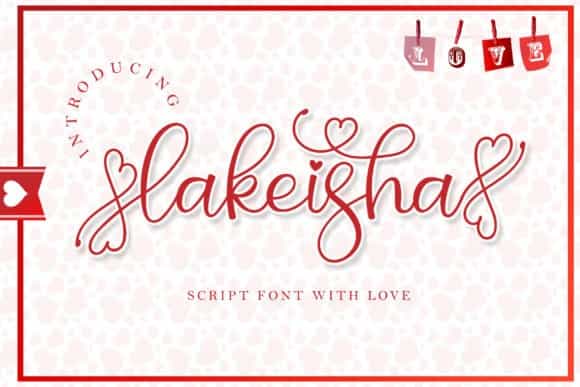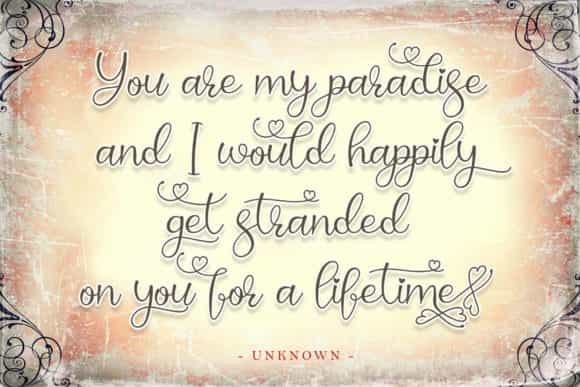
Lakeisha is a handwritten, elegant, modern calligraphic font that goes perfectly with wedding design projects, invitations, greeting cards, signatures watermarks logos handwriting and more.